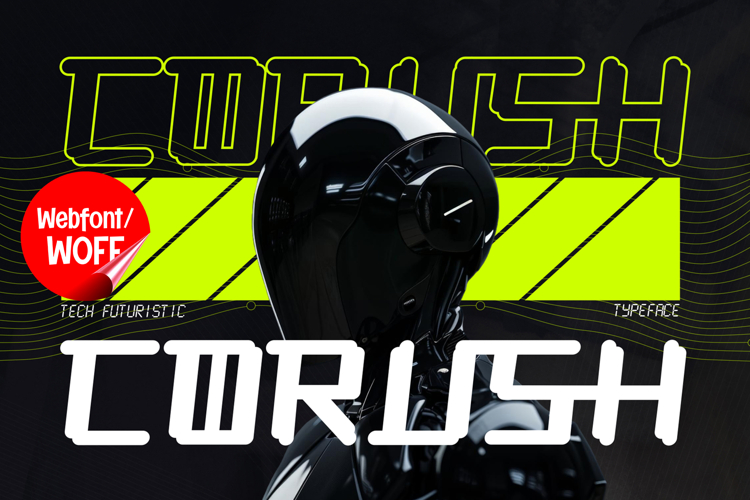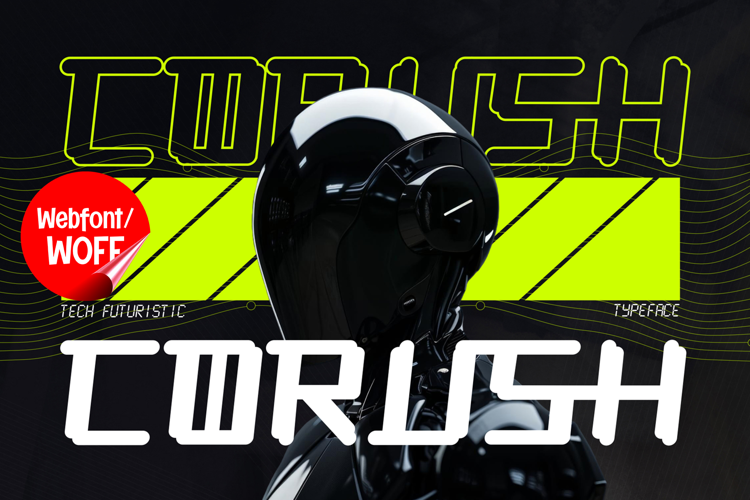
Corush | Sci-Fi Futuristic Webfont for Modern Digital Design
Corush is a sci-fi futuristic webfont designed to bring advanced technology aesthetics and modern digital energy into contemporary website design. Inspired by cyberpunk visuals, futuristic interfaces, and high-tech typography, this font features sleek geometric forms and sharp details that create a bold and innovative visual identity. It is an excellent choice for projects that aim to deliver a cutting-edge, futuristic, and visually impactful typographic style.
Corush includes a complete set of uppercase characters designed with sci-fi inspired forms. The letterforms feature angular cuts, clean lines, and modern proportions that create a futuristic appearance while maintaining strong readability. These characteristics make it ideal for headlines, banners, hero sections, gaming interfaces, and featured content where strong visual impact is essential.
In addition to letters, the font includes numbers and punctuation, allowing flexible usage across various parts of a website. It works well for technology branding, esports graphics, startup websites, digital campaigns, product showcases, and sci-fi themed content. Each character maintains a consistent futuristic style, ensuring a cohesive and unified visual identity throughout the layout.
With multilingual support, Corush includes a wide range of accented characters, making it suitable for international websites and global audiences. This ensures content remains clear and visually consistent across different languages while preserving the sleek and futuristic aesthetic.
The sci-fi futuristic style of Corush makes it especially suitable for gaming websites, AI and technology branding, digital products, automotive projects, and creative portfolios. Its modern and futuristic design adds sophistication and innovation, helping websites stand out in visually competitive environments. The geometric structure enhances the sense of precision, speed, and advanced technology.
Despite its stylized futuristic appearance, Corush is designed with readability in mind. The spacing and proportions are carefully balanced to ensure clarity, particularly in display sizes. This makes it effective for impactful headings and short content elements where both style and usability are important.
Corush is a webfont that combines sci-fi aesthetics with modern digital performance. Its sharp forms, geometric structure, and futuristic character create a distinctive typographic presence that enhances website design. For projects that require a sleek, innovative, and visually engaging futuristic font, Corush offers a strong and versatile solution.